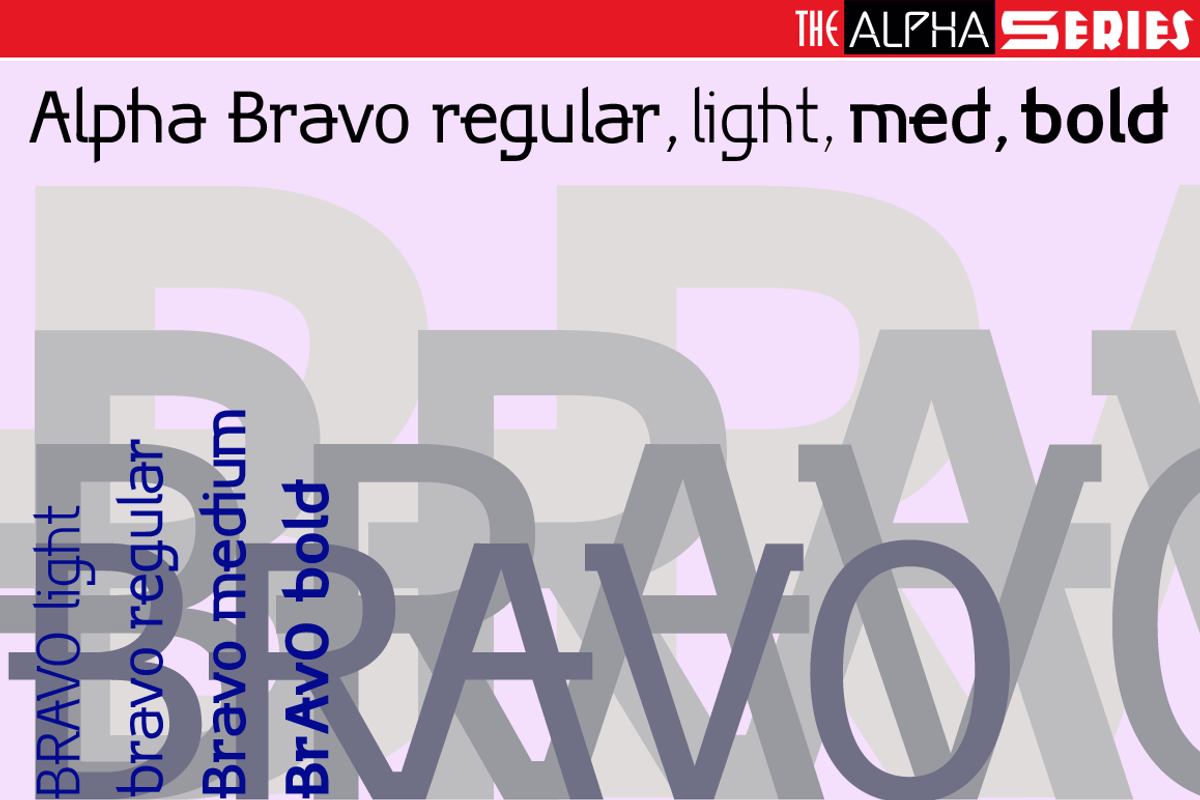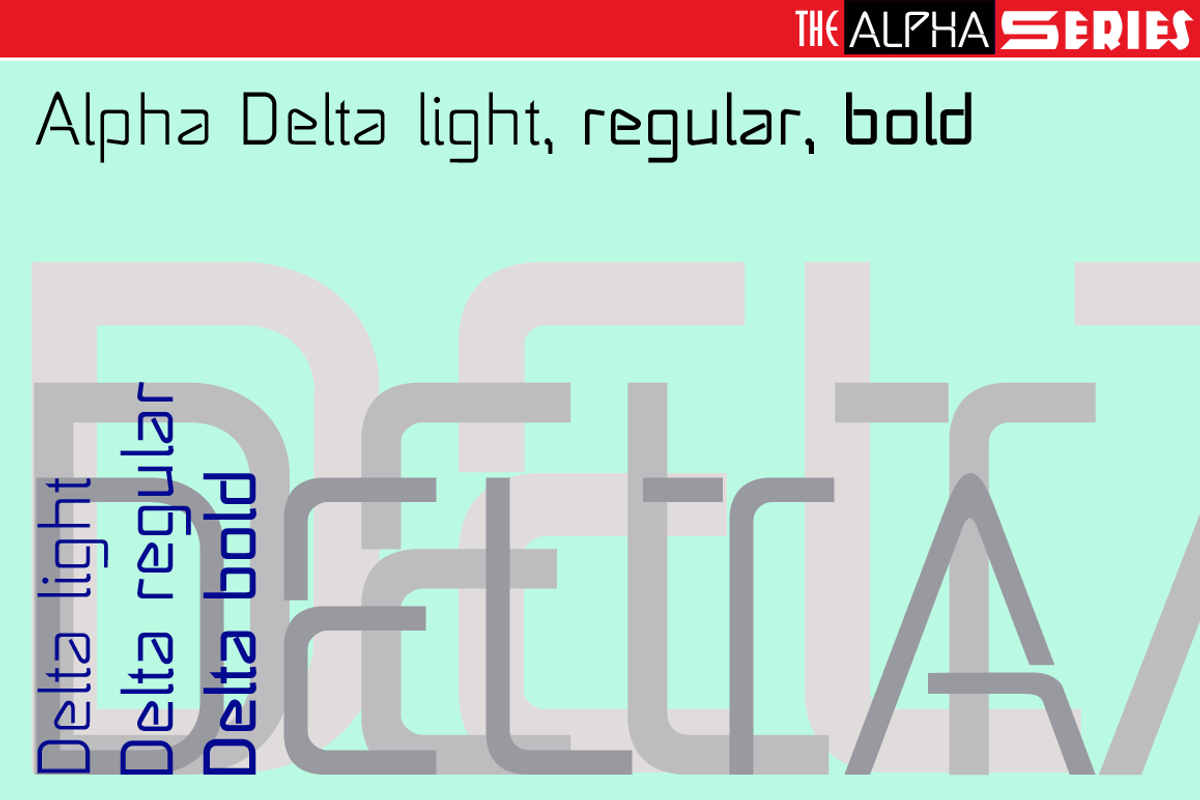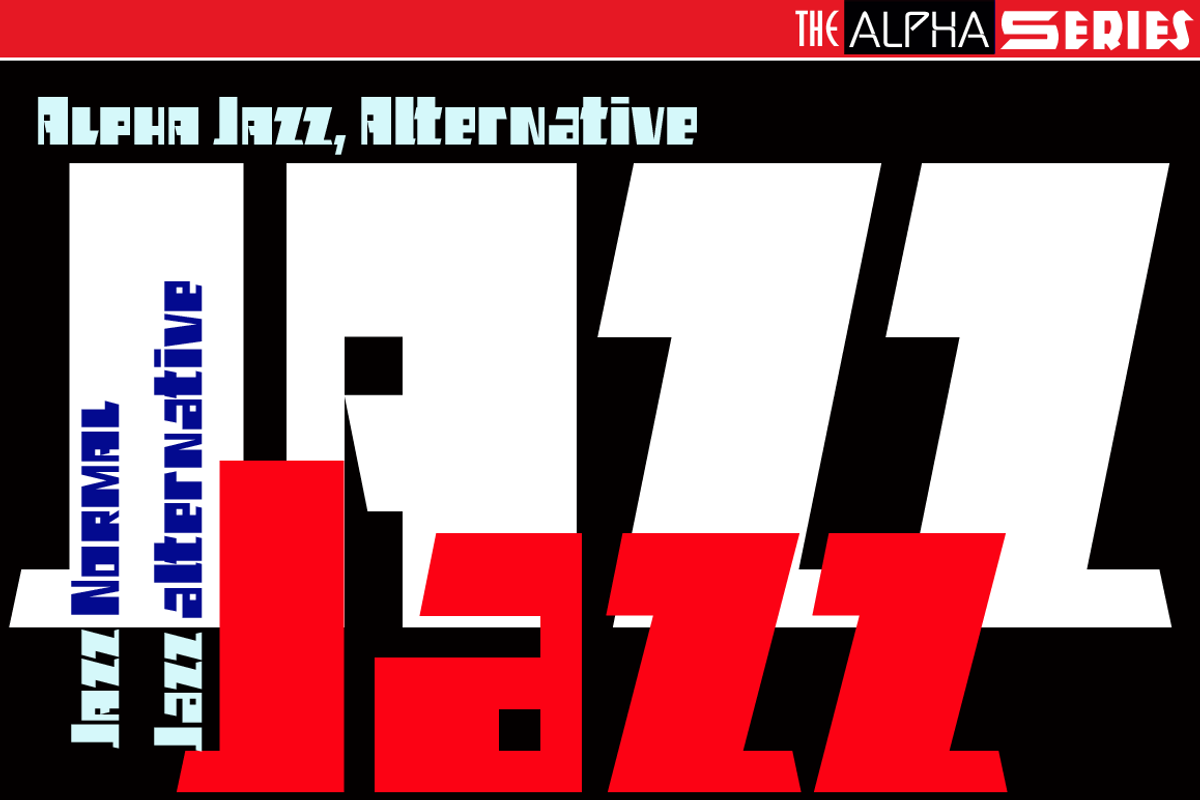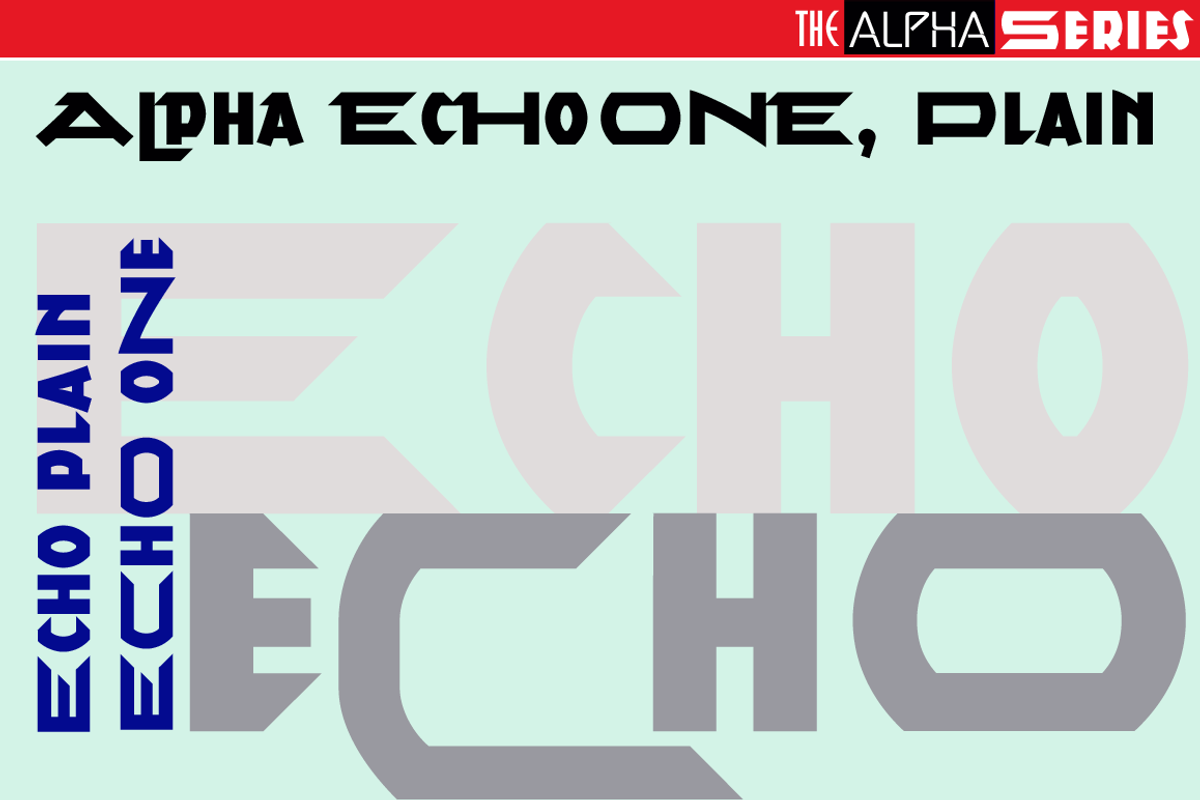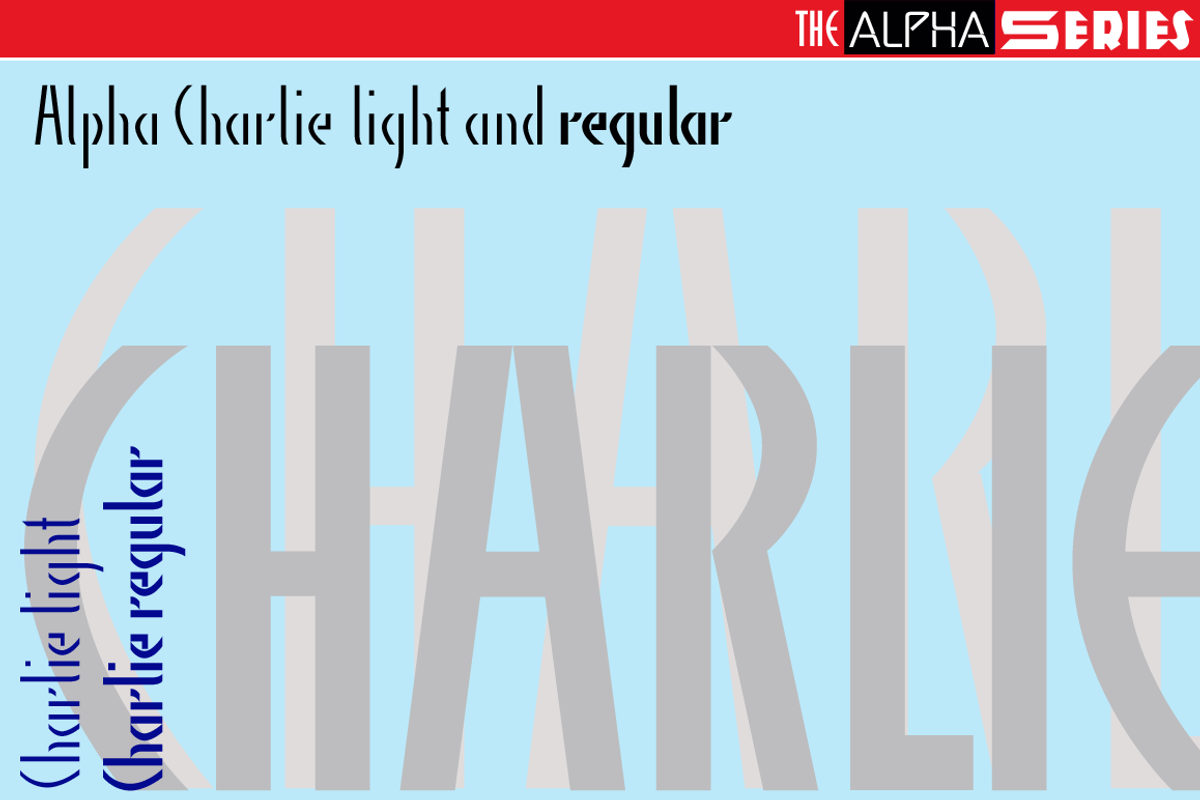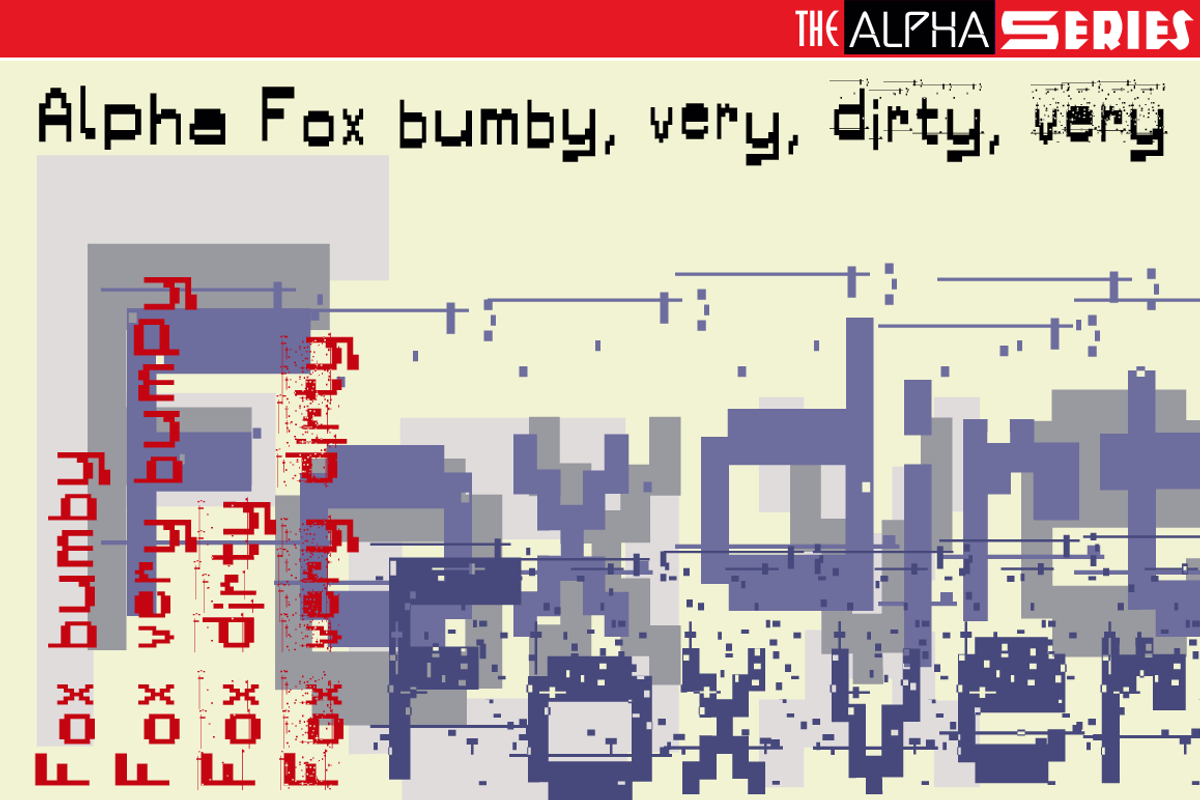
Alpha Series Font Collection
»Alpha Series« is a useful packet of 23 modern experimental fonts. You can use these fonts in many creative ways, the results will always be very typical. Now you can get the packet for a limited time at an incredibly reduced price! Enjoy!
Alpha Series Font Collection by Wiescher Design fits naturally into Branding, posters, packaging, typography.